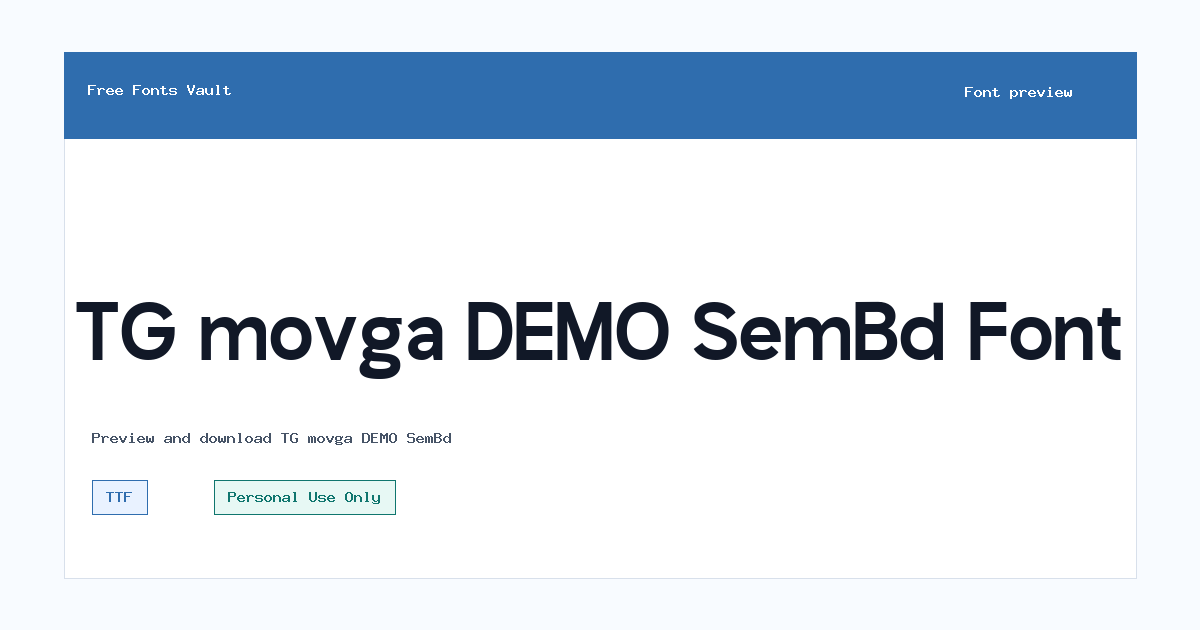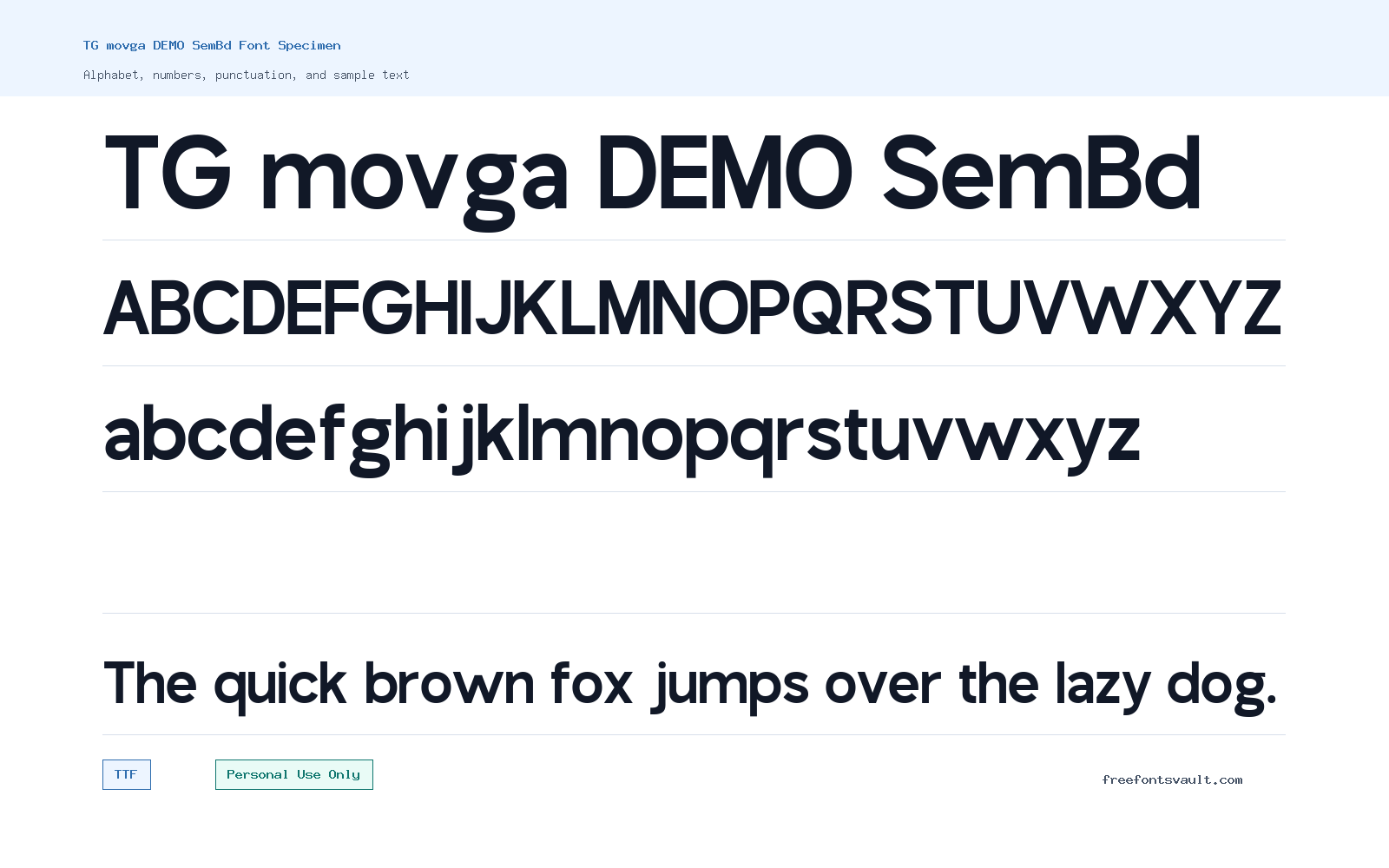
TG movga DEMO SemBd
- Designer Mukhamad Rafly Makhbuby part of Typogrid
- Foundry Typogrid
TG movga DEMO SemBd font.
TG movga DEMO SemBd is a semi-bold sans serif demo font with a clean, steady look suited to short display text, branding tests, poster drafts, and layout previews.
About TG movga DEMO SemBd Font
TG movga DEMO SemBd belongs to the TG Movga Sans Serif Font Family and is presented as a demo semi-bold style. The available font file is a TrueType font with a normal style and a 700 weight, which usually gives text a firmer, heavier appearance than regular body type. That makes it more useful for headlines, nameplates, button text, labels, and other places where a design needs stronger visual presence without moving into an extra-heavy display face. Because the available style is semi-bold, it is best judged in words, short phrases, and medium-length headings rather than long reading paragraphs.
The font can be useful when you want a sans serif that feels direct and structured in a design preview. Try it for logo concepts, poster titles, social media graphics, packaging mockups, web hero text, and menu or interface headings. In a logo process, test the spacing carefully at different sizes, especially if the name contains narrow letters, repeated vertical stems, or mixed uppercase and lowercase forms. For posters and web mockups, compare it against both light and regular supporting fonts so the semi-bold weight does not make every text element compete for attention. Since only one demo style is listed, you may need another family for body copy, captions, italics, or a wider weight range.
A practical way to preview TG movga DEMO SemBd is to type the actual words you plan to use, not just a sample alphabet. Check brand names, headings, numbers, punctuation, and common UI labels. Look at the font at small, medium, and large sizes, because a semi-bold sans serif can feel balanced in a headline but too dense in compact navigation or captions. If you plan to use it in a poster, test it on both light and dark backgrounds. If you plan to use it in a logo draft, export a few rough mockups and check whether the forms still feel clear when scaled down.
For pairing, keep the supporting type simple. A lighter sans serif can work well for body text if you want a consistent modern layout, while a restrained serif can add contrast in editorial-style posters or presentation covers. Avoid pairing it with another heavy display font unless the design is intentionally bold, because two strong typefaces can quickly make a layout feel crowded. In web mockups, use TG movga DEMO SemBd for the main headline or call-to-action area, then choose a more neutral text face for paragraphs, menus, and legal copy. This keeps the demo font visible without making the whole page feel overly heavy.
- Semi-bold sans serif style with a 700 font weight for stronger headings and short display text
- Normal style demo variant, useful for checking headline weight, spacing, and brand-name samples
- Best suited to short text settings where clear emphasis matters more than long-form reading
- Works as a practical test font for logo concepts, posters, social graphics, and web hero mockups
- Logo concept drafts and brand-name previews
- Website hero headings and landing page mockups
- Social media quote cards, banners, and thumbnails
- Packaging, label, and presentation title experiments
- Personal design studies where a semi-bold sans serif is needed
TG movga DEMO SemBd is credited to Mukhamad Rafly Makhbuby, part of Typogrid, with Typogrid listed as the foundry.
Use TG movga DEMO SemBd mainly for display text and design testing. Preview your exact wording, check spacing at different sizes, and pair it with a lighter or more neutral text font for paragraphs and captions. Because only one demo semi-bold TTF variant is listed, choose another supporting family when a project needs italics, lighter weights, or full body-copy flexibility.
What kind of font is TG movga DEMO SemBd?
It is a demo semi-bold sans serif font. The available file is a TrueType font in normal style with a 700 weight.
What is TG movga DEMO SemBd best used for?
It is most practical for short, prominent text such as logo drafts, poster titles, web hero headings, social graphics, packaging mockups, and presentation covers.
Who designed TG movga DEMO SemBd?
The font is credited to Mukhamad Rafly Makhbuby, part of Typogrid, with Typogrid listed as the foundry.